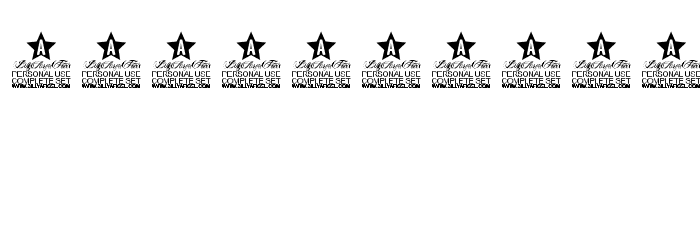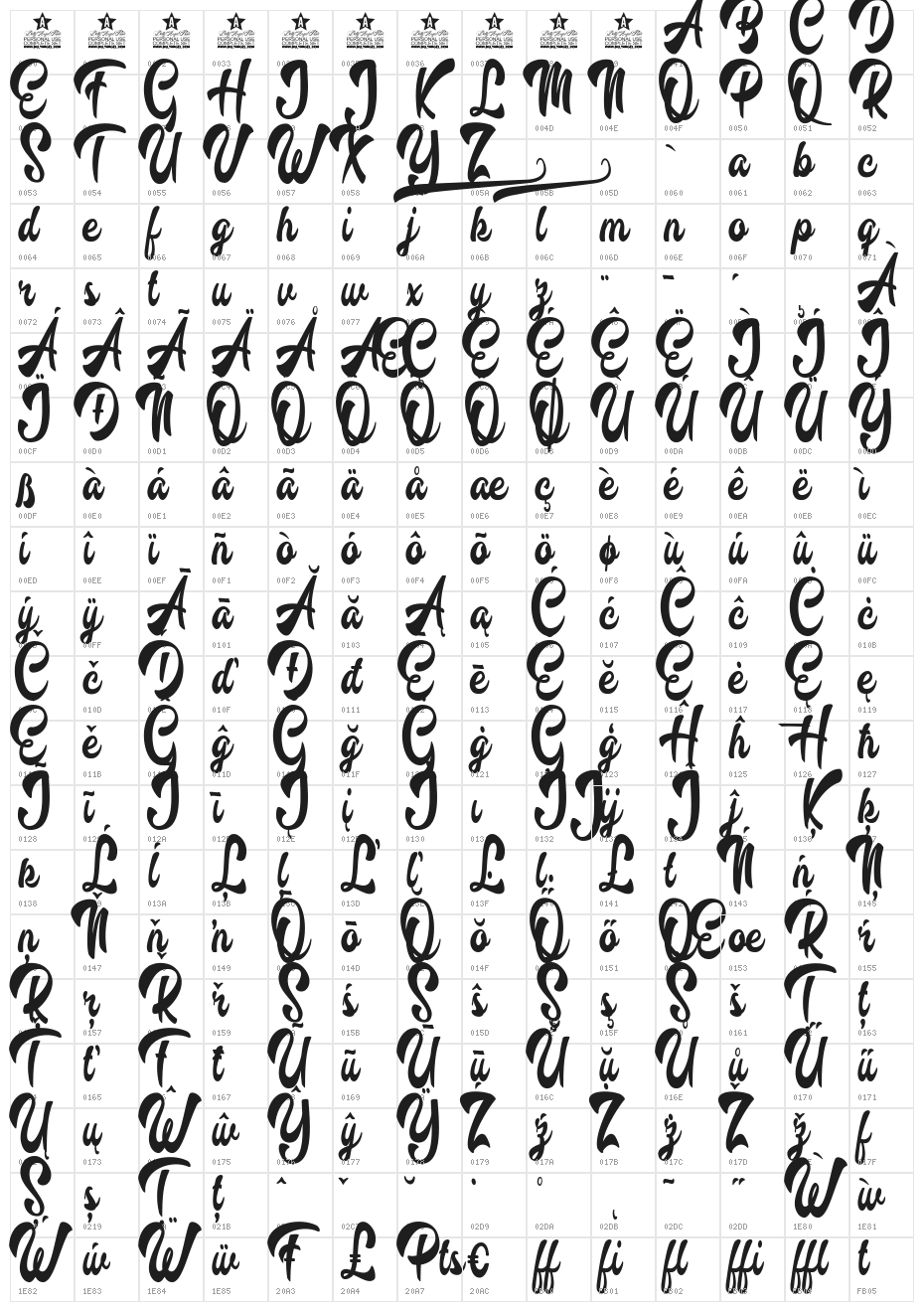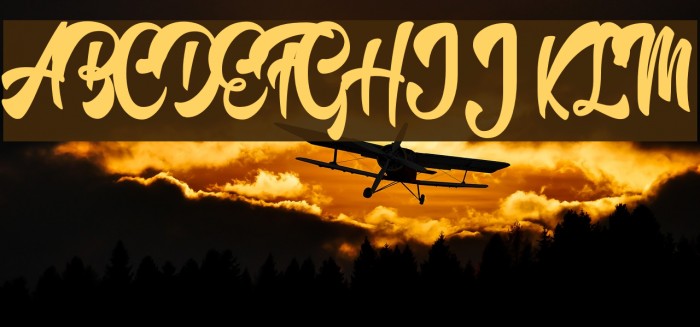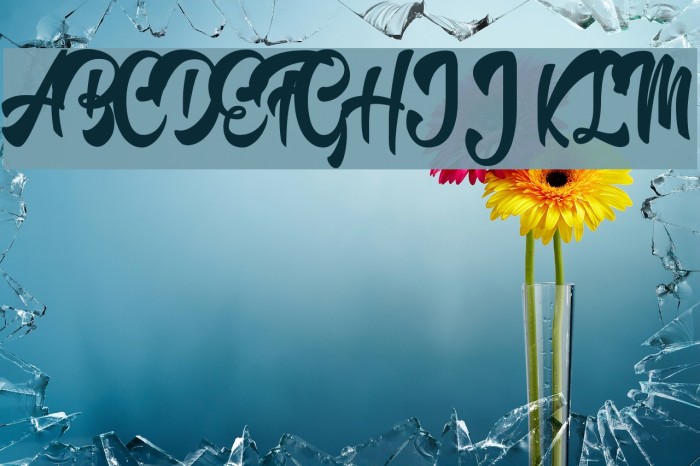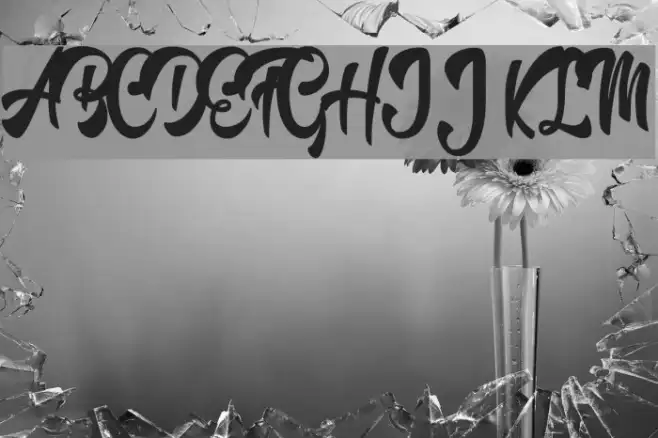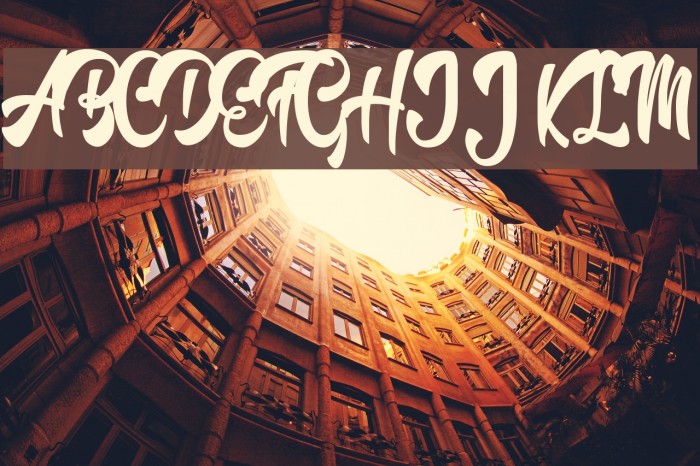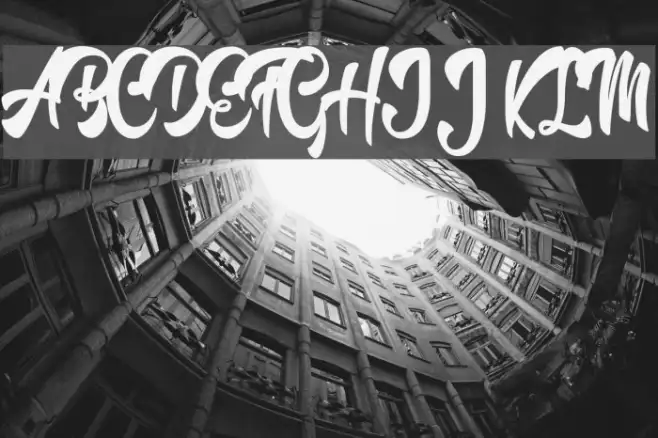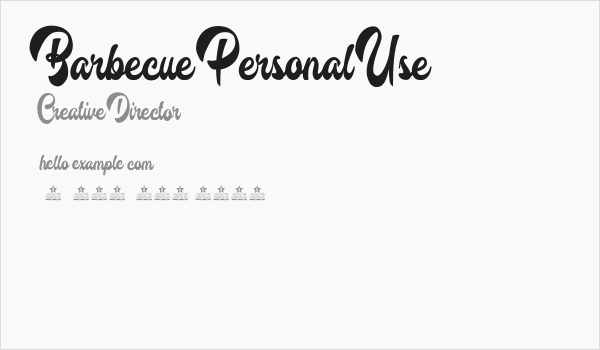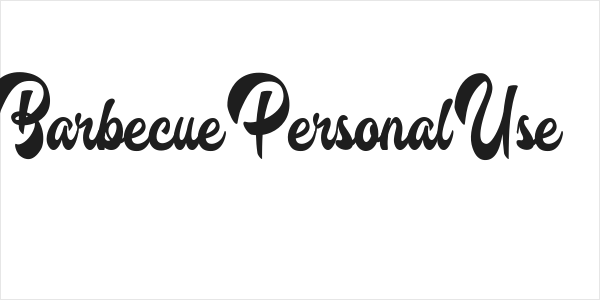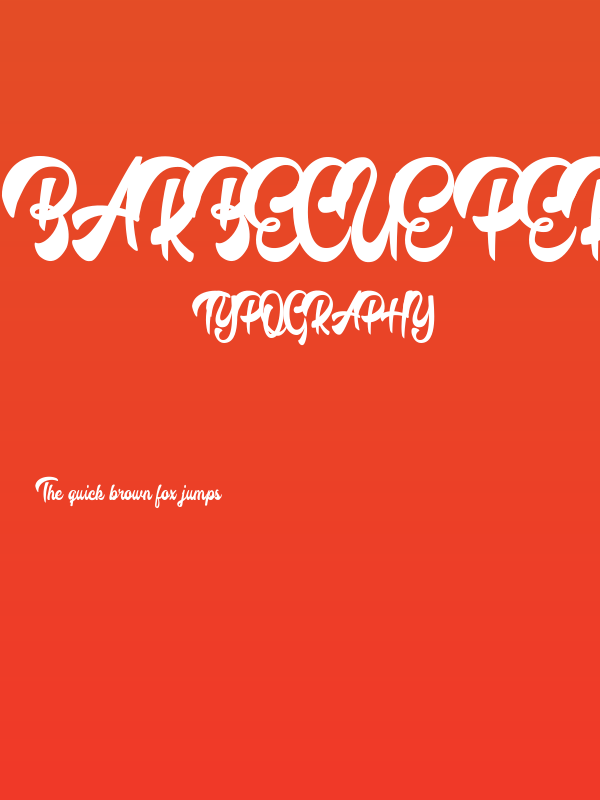
Barbecue Personal Use Font
Barbecue Personal Use Description
This font features a bold and dynamic script style with a strong presence. The letters are interconnected, creating a fluid and continuous flow that mimics handwriting. The uppercase letters are particularly striking, with exaggerated curves and flourishes that add a sense of movement and energy. The lowercase letters maintain the same fluidity, with rounded forms and smooth transitions. This font is highly decorative, making it ideal for designs that require a personal and artistic touch. The overall appearance is both modern and playful, suitable for a variety of creative applications.
| Proposed Projects | Ideal for branding, invitations, posters, and any design requiring a personal, artistic touch. |